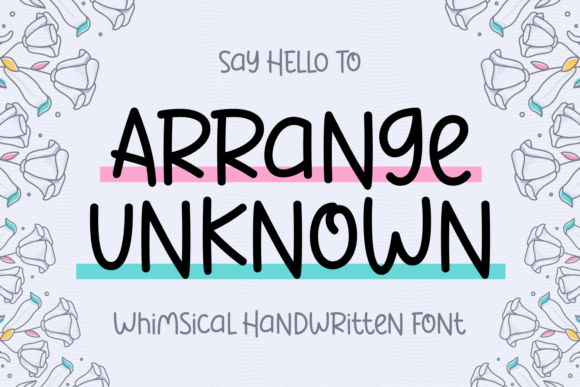
Presenting Arrange Unknown, a wondrous script font that dances with charm and creativity, waiting to grace your designs with its playful elegance. Crafted by the skilled artisans at Creative Fabrica Fonts, this font is a visual delight, ready to transform your words into captivating works of art.
Unleash the enchanting personality of Arrange Unknown in storybooks, where its playful curves and cheerful strokes bring beloved characters to life. Its whimsical nature dances across book covers, capturing the imagination with its infectious energy. As posters and ads come alive with its spirited presence, social media posts sparkle with a unique flair, drawing attention like a magnet.
Fashion designers, prepare to be swept off your feet as Arrange Unknown dances across apparel designs, adding a touch of whimsy and individuality to every creation. This font is a versatile chameleon, adapting seamlessly to a myriad of styles, from playful and quirky to elegant and sophisticated.
With Arrange Unknown, the possibilities are as endless as the imagination itself. Its ability to evoke joy and capture hearts is undeniable. Join the creative revolution and let this extraordinary font weave its magic into your designs, taking them from ordinary to extraordinary.